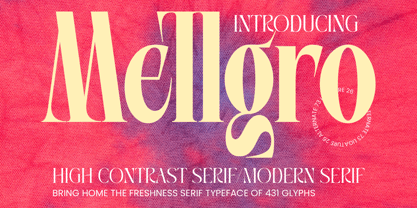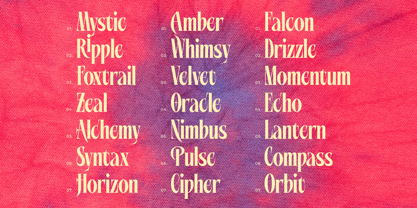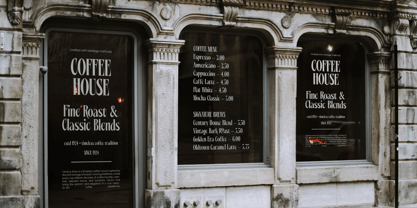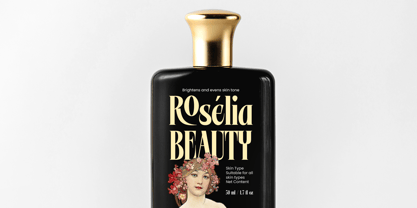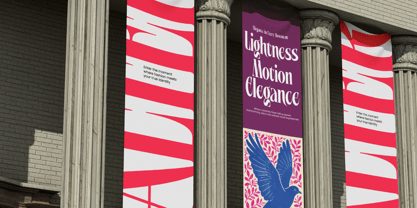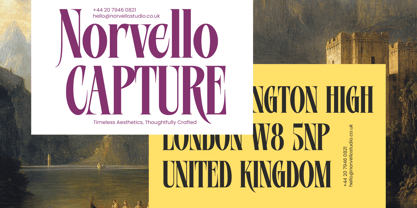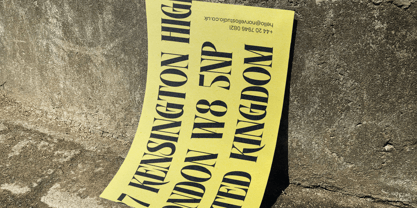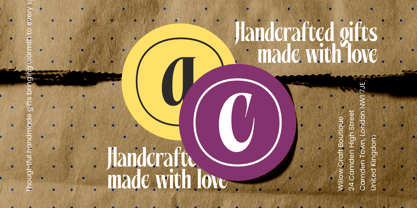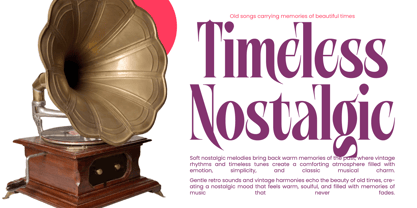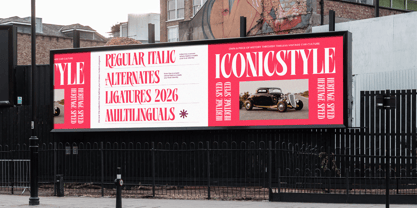
Mellgro
by Timelesstype Studio
The Mellgro Font Family was designed by Heru Utama Putra and published by Timelesstype Studio. Mellgro contains 2 styles and family package options. More about this family
Mellgro – High Contrast Modern Serif Mellgro is a sophisticated high-contrast modern serif typeface that embodies elegance, luxury, and timeless beauty. Inspired by classic Didone-style typography, this font features dramatic thick-to-thin strokes, refined serifs, and graceful letterforms that make it perfect for high-end and editorial design. Designed to elevate visual identity, Mellgro delivers a striking presence in headlines while maintaining excellent readability for sophisticated layouts. Its elegant structure makes it ideal for fashion branding, luxury packaging, magazine titles, logos, invitations, and premium marketing materials. With an extensive character set, Mellgro provides versatility and creative flexibility for designers seeking a refined and professional serif typeface. Whether used for print or digital media, this font ensures a polished and prestigious aesthetic.